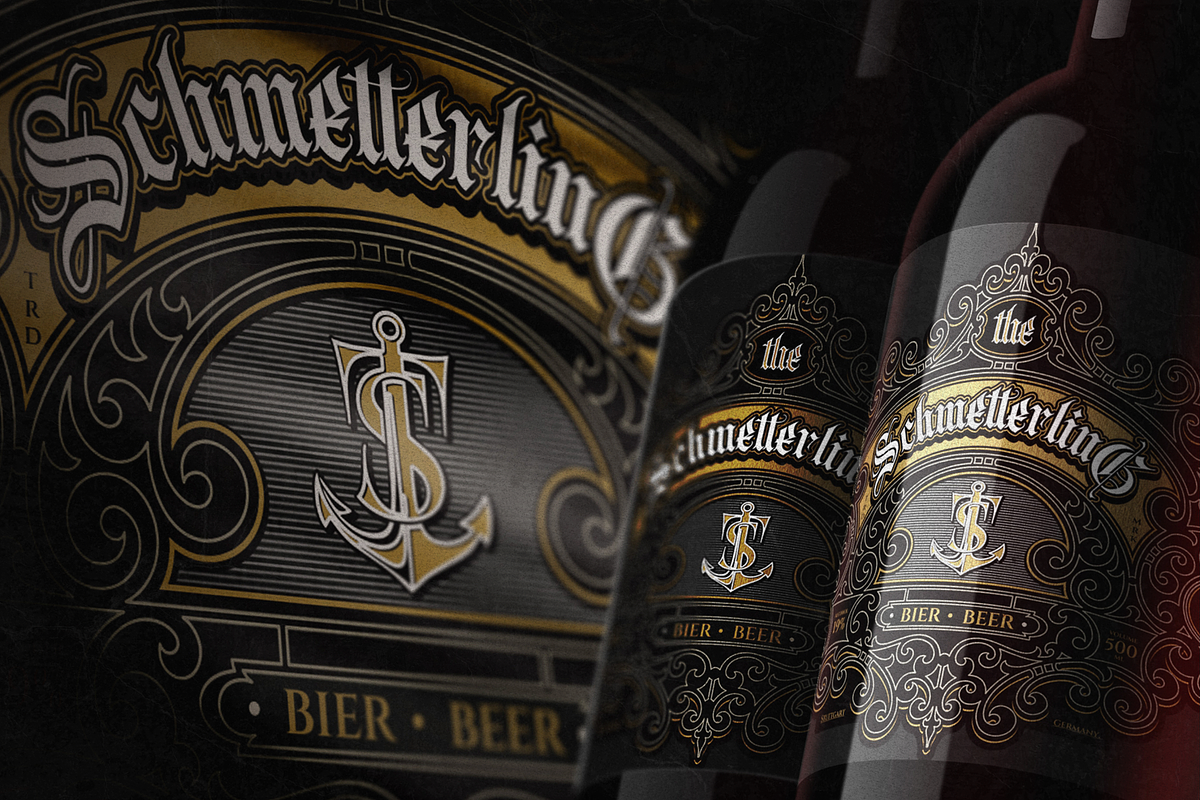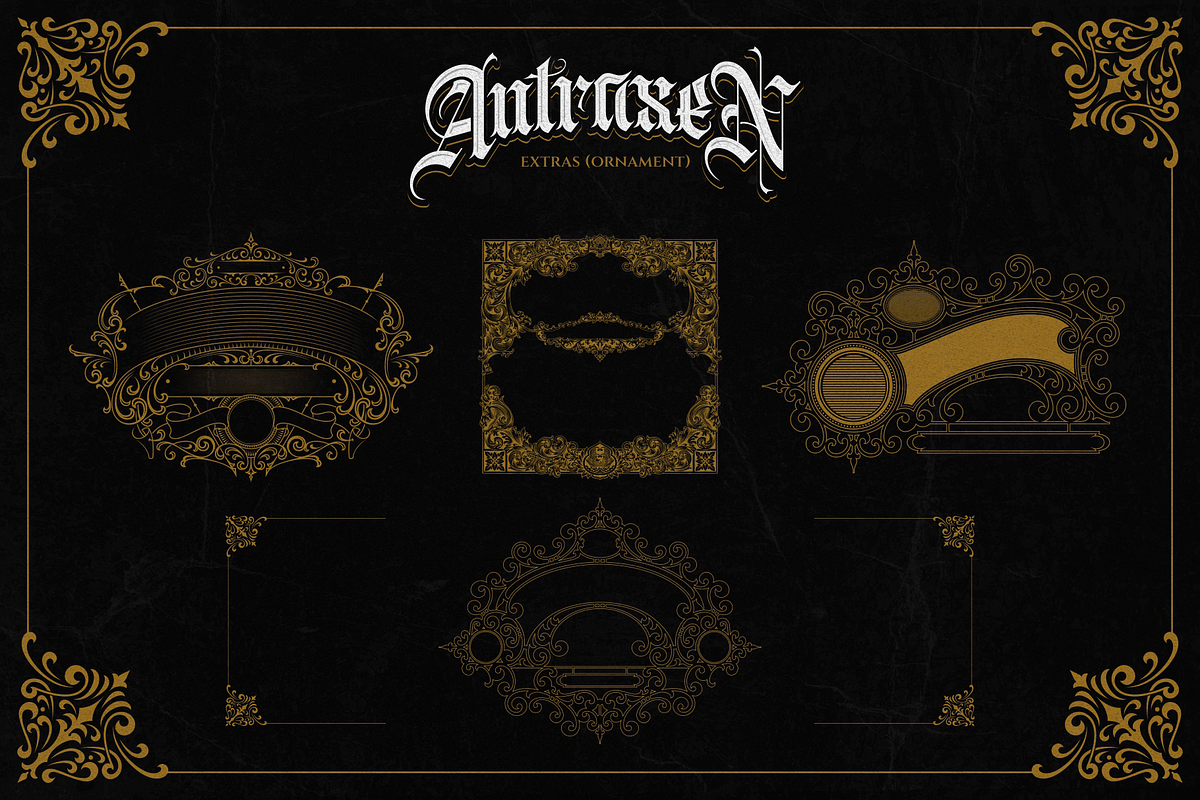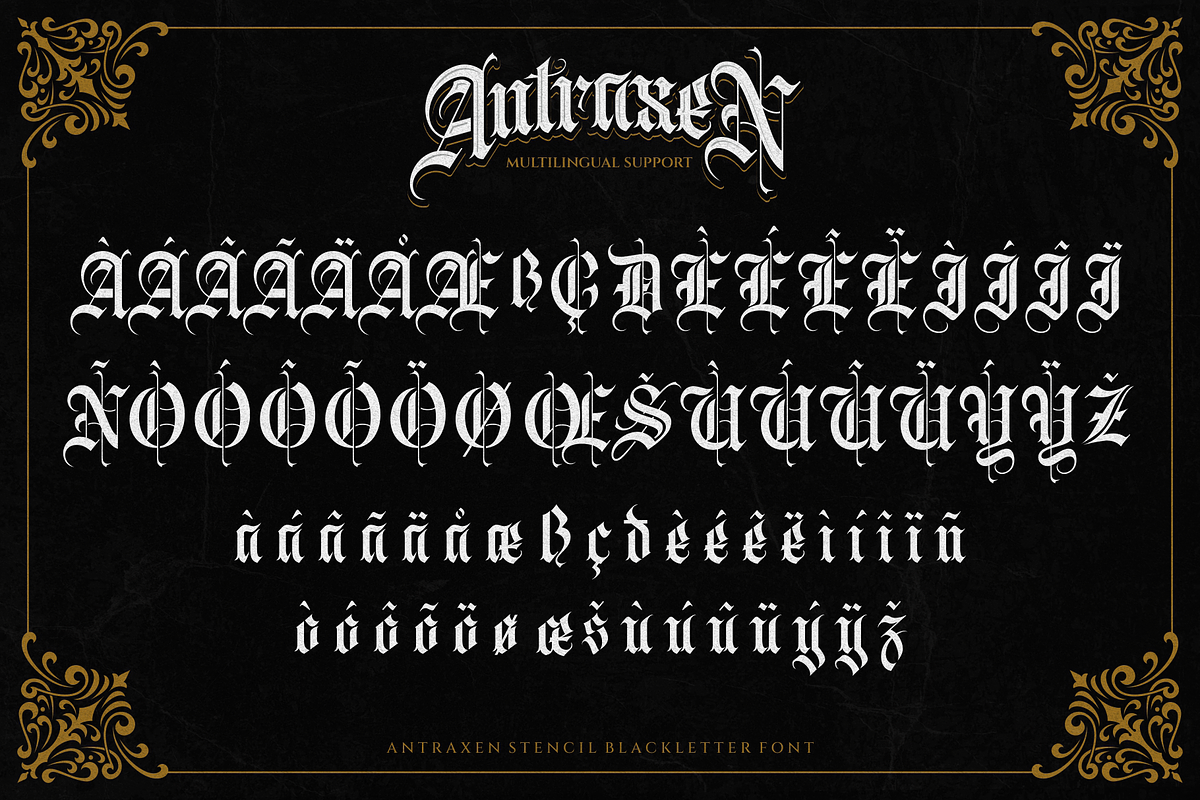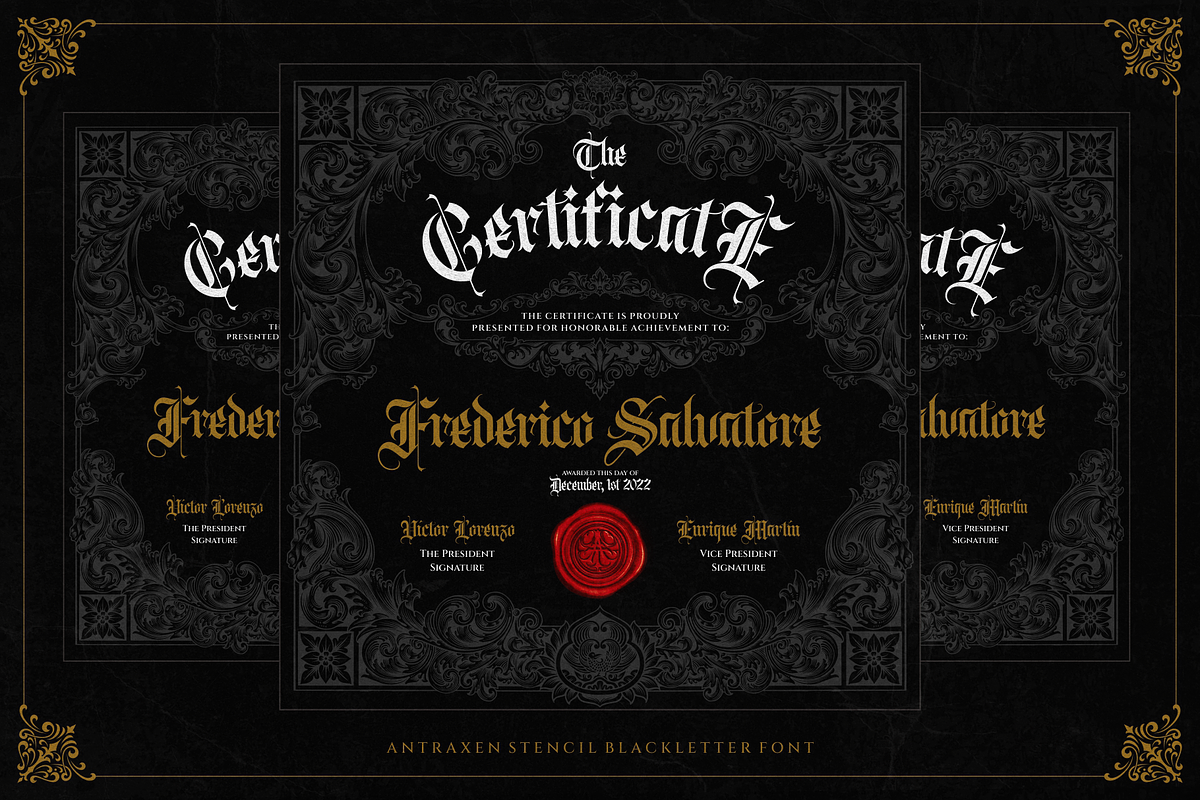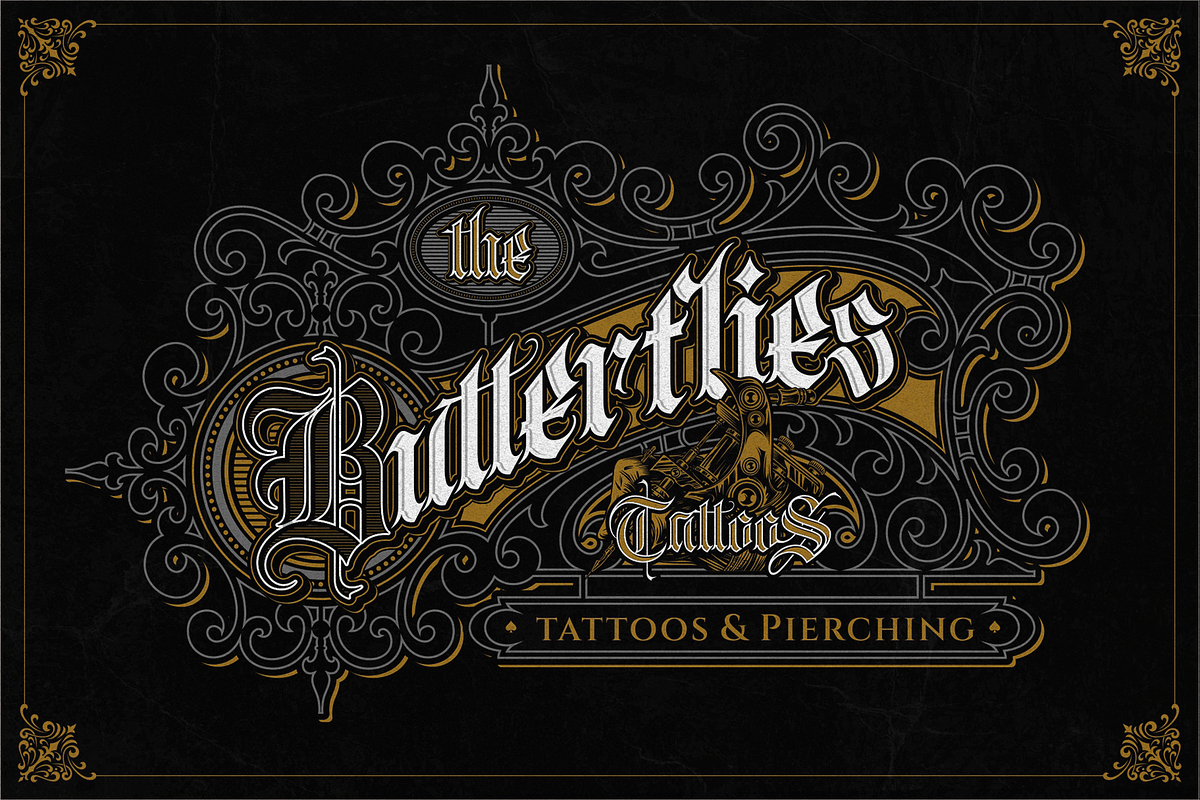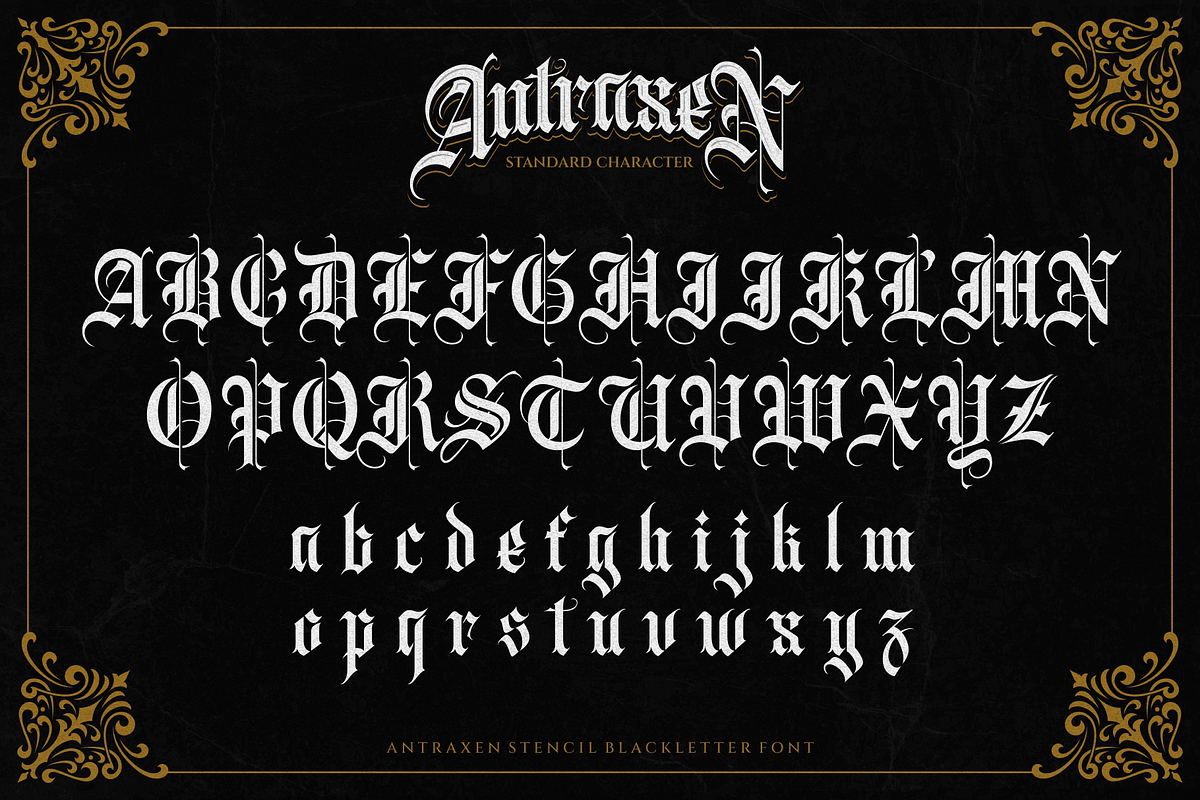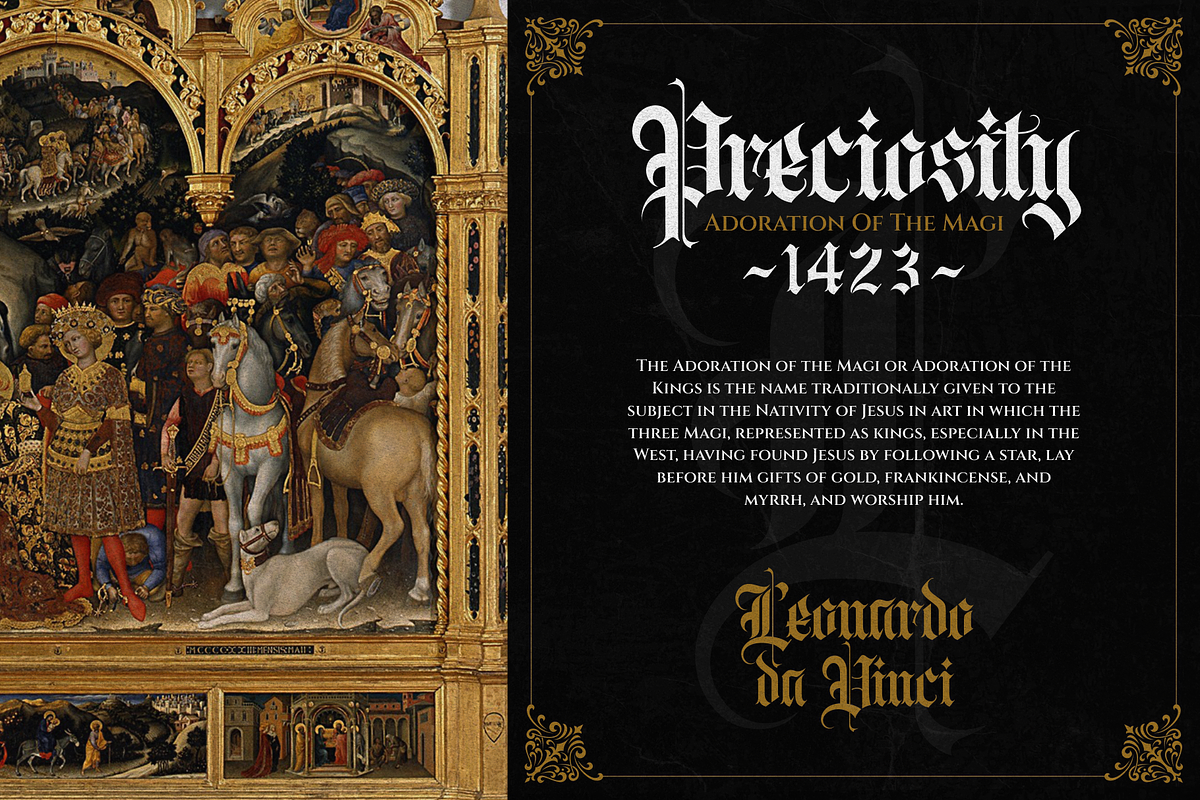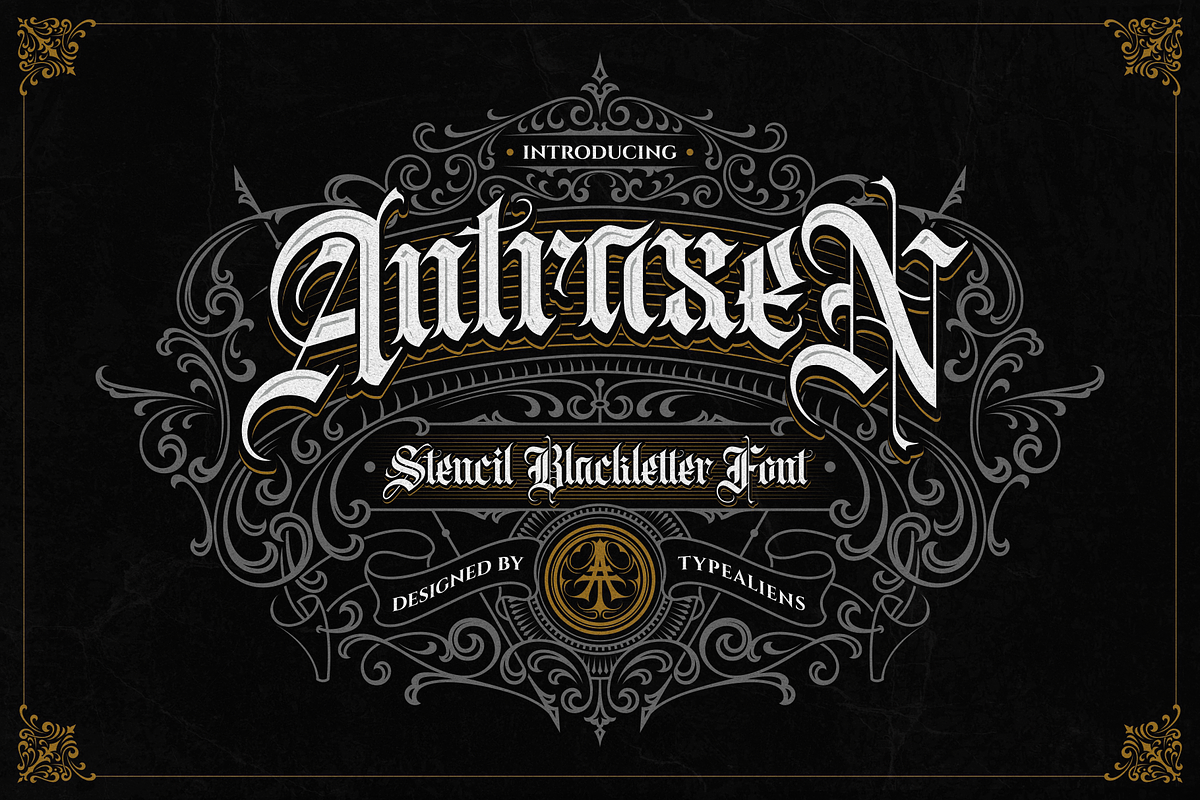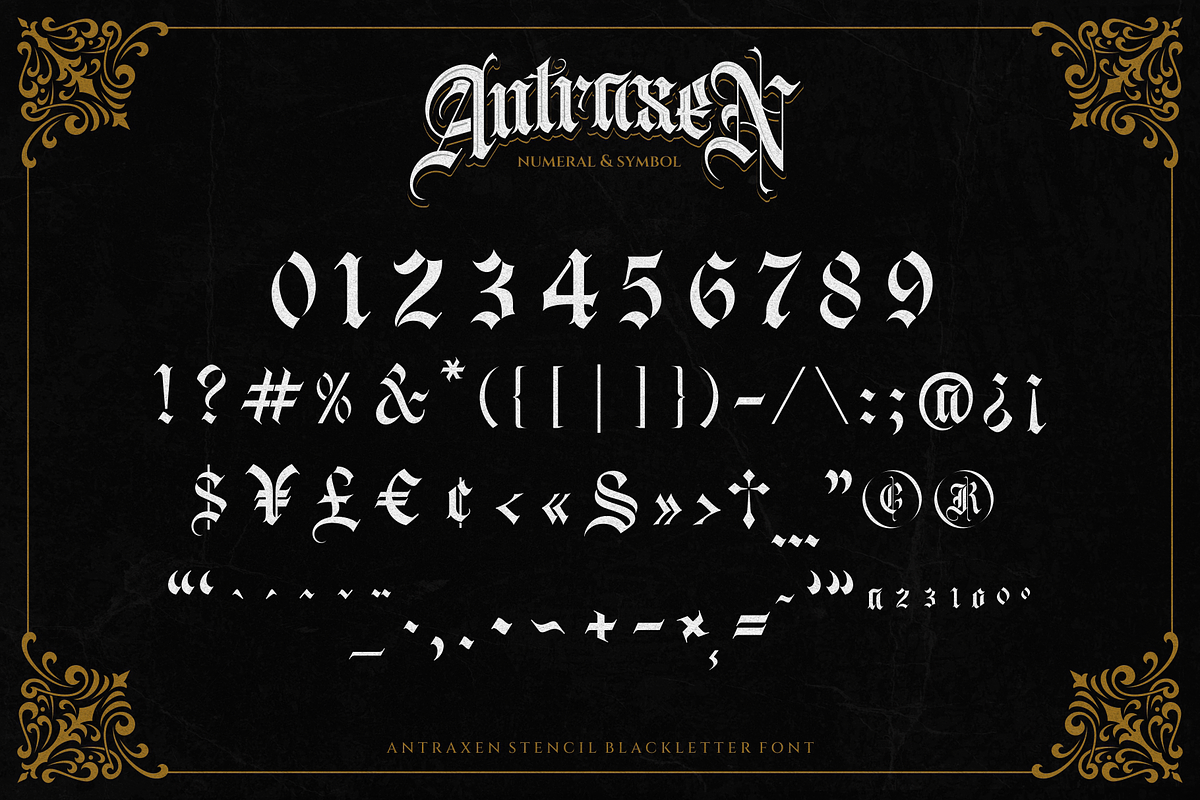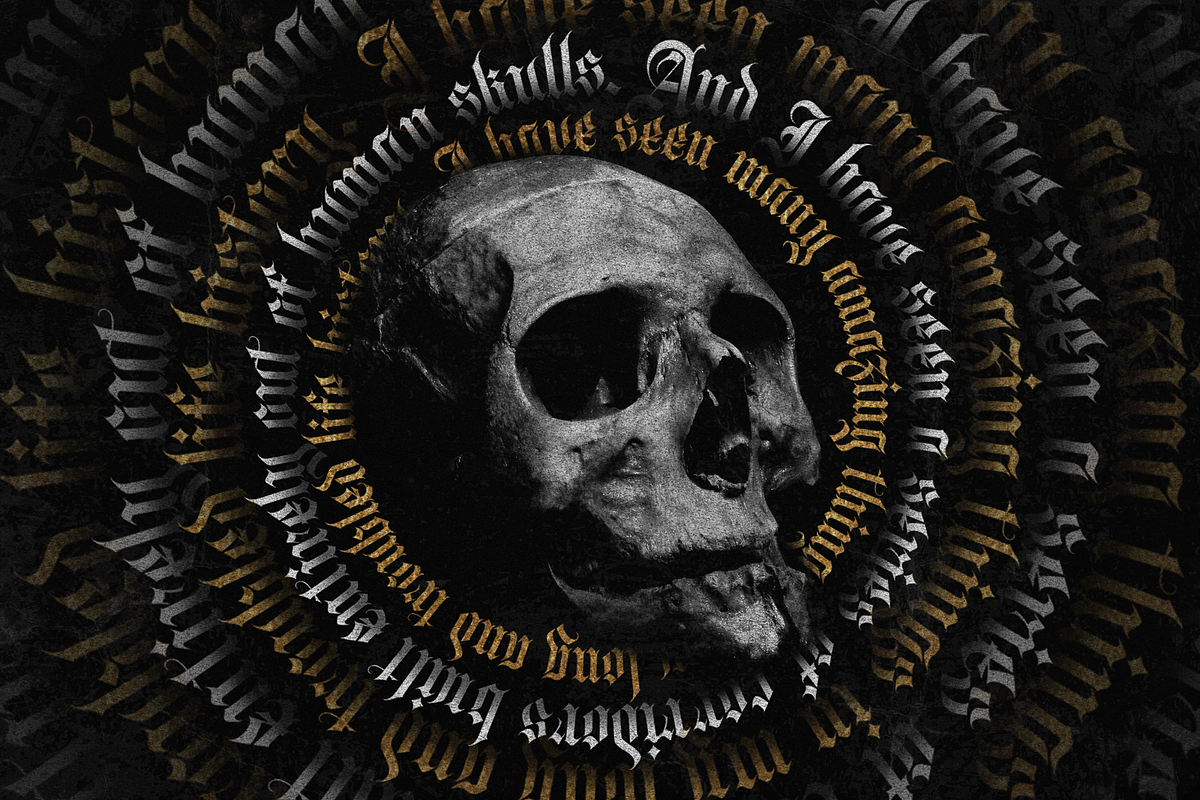
Antraxen for Tattoo & Liquor Brand
ANTRAXEN
Antraxen is a Blackletter font that still has the original feel but we give it a little extra as if it were a stencil. The vintage style doesn't go away, instead we want to highlight it even more by adding a stencil impression, as usual this font will be very suitable for brands that need a classic and gothic style, as can for liquor brands, both logos and label designs. Besides that, this font is also synonymous with tattoos, both for tattoo studio logos and for the tattoo design itself.